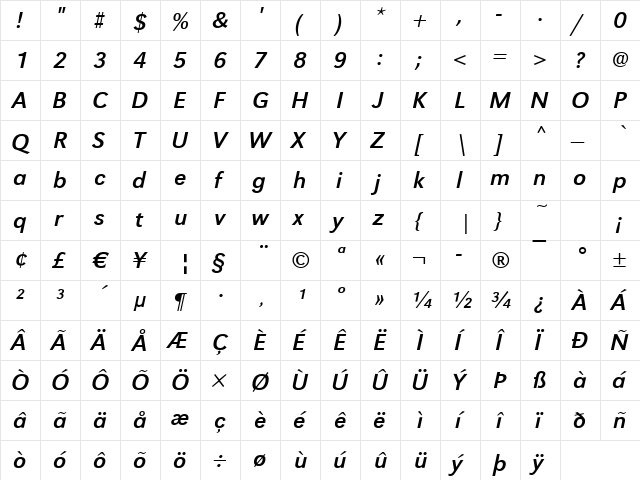
Grotesk Italic
Design Context for Grotesk Typeface
Grotesk has the quiet confidence of well-executed sans-serif typography: versatile, unobtrusive, and dependable at any size. The dynamic lean of this cut emphasises speed and emphasis in any layout.
Font Pairing: Works well alongside a characterful serif or display font that can carry the expressive load while Grotesk handles the functional copy.
Pro Tip: Pair Grotesk with a display or serif font for headlines — its neutral character makes it an excellent supporting player in complex typographic systems.